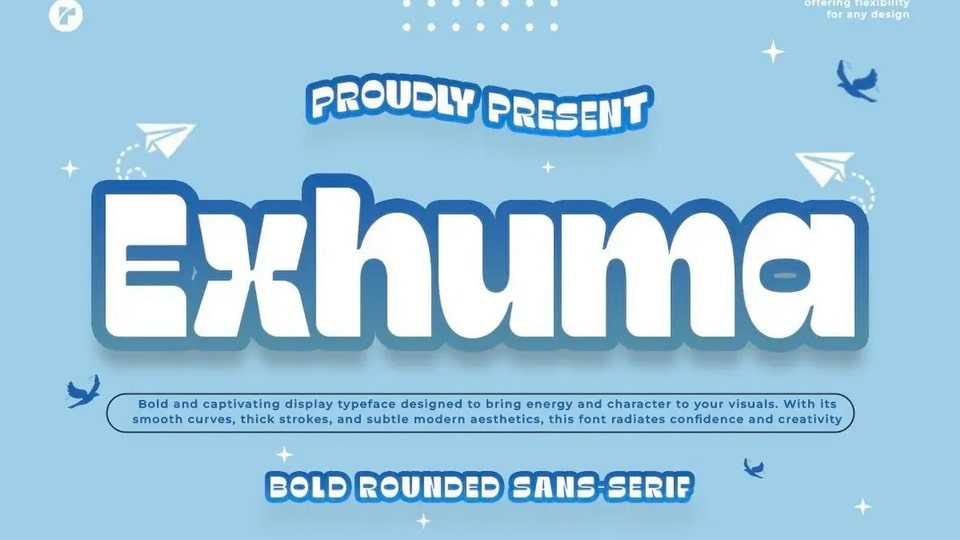
Download Exhuma font, a bold rounded sans-serif typeface that blends modern aesthetics with playful energy. Designed with smooth curves and thick strokes, this font is perfect for branding, logos.